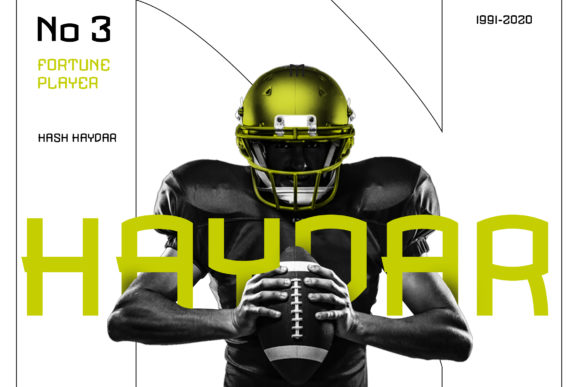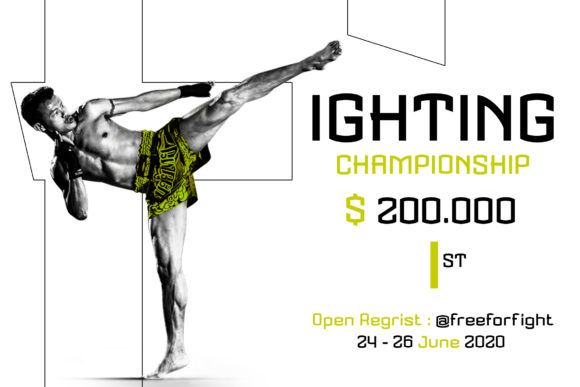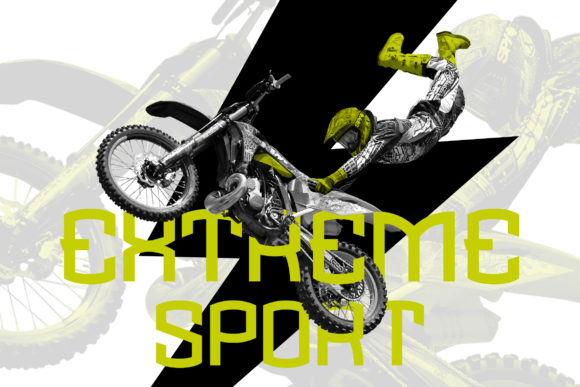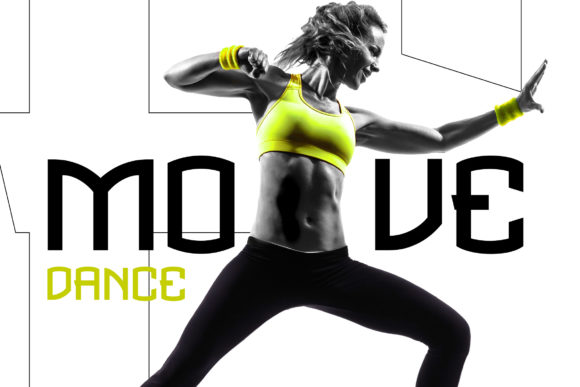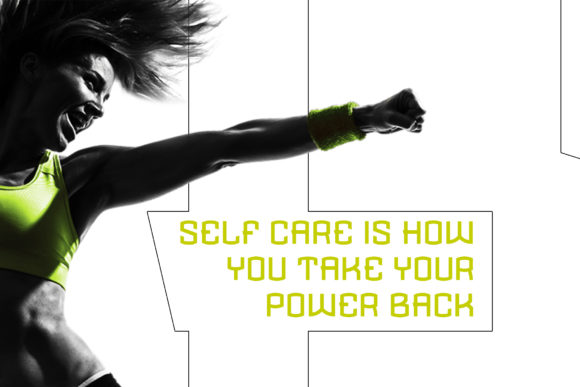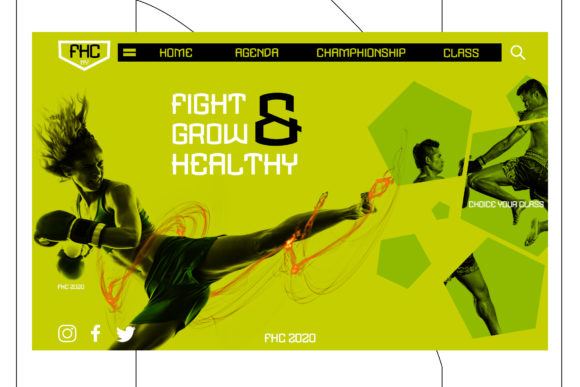
Introducing Fortune Font: The Ultimate Choice for Sport-Themed Designs
Are you a designer or crafter looking for a font that can add a touch of excitement and energy to your projects? Look no further than Fortune Font! This great display font is perfect for any sport-themed project, and its strong personality is sure to make your designs stand out from the crowd.
What Makes Fortune Font So Special?
Fortune Font is a unique and stylish font that is specifically designed to capture the spirit of sports and athleticism. Its bold and dynamic design makes it perfect for creating eye-catching logos, social media posts, and advertisements that demand attention. Whether you’re working on a project for a sports team, a fitness brand, or an outdoor enthusiast, Fortune Font is the perfect choice.
Key Features of Fortune Font
- Strong Personality: Fortune Font has a bold and confident personality that is sure to make your designs stand out.
- Sport-Themed Design: The font’s design is inspired by the world of sports, making it perfect for any project that requires a dynamic and energetic feel.
- High Versatility: Fortune Font can be used for a wide range of projects, from logos and social media posts to advertisements and more.
- Easy to Read: Despite its bold design, Fortune Font is easy to read and understand, making it perfect for use in a variety of contexts.
How to Use Fortune Font in Your Designs
Fortune Font is incredibly easy to use, and its versatility makes it perfect for a wide range of design projects. Here are a few ideas to get you started:
- Create Amazing Logos: Use Fortune Font to create bold and eye-catching logos for sports teams, fitness brands, and outdoor enthusiasts.
- Design Eye-Catching Social Media Posts: Use Fortune Font to create social media posts that demand attention and drive engagement.
- Make Unique Advertisements: Use Fortune Font to create advertisements that stand out from the crowd and leave a lasting impression.
Why Designers and Crafters Love Fortune Font
Fortune Font has quickly become a favorite among designers and crafters, and it’s easy to see why. Here are a few reasons why:
- Unique Design: Fortune Font has a unique and stylish design that sets it apart from other fonts.
- High Quality: Fortune Font is a high-quality font that is designed to deliver exceptional results.
- Easy to Use: Fortune Font is incredibly easy to use, making it perfect for designers and crafters of all skill levels.